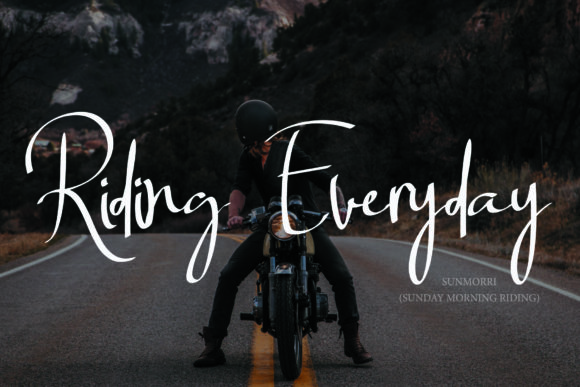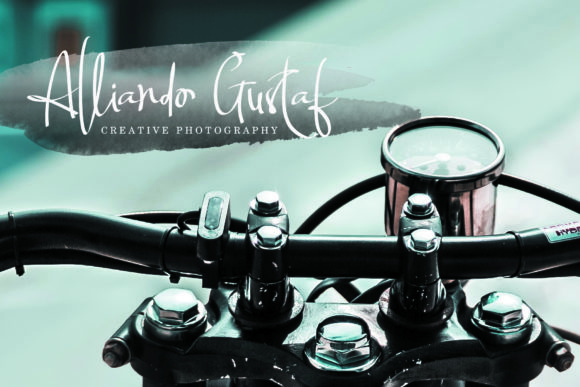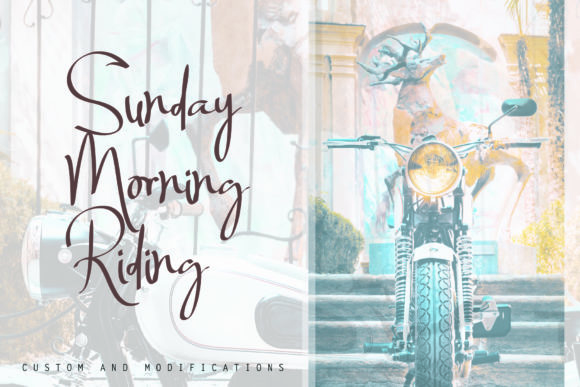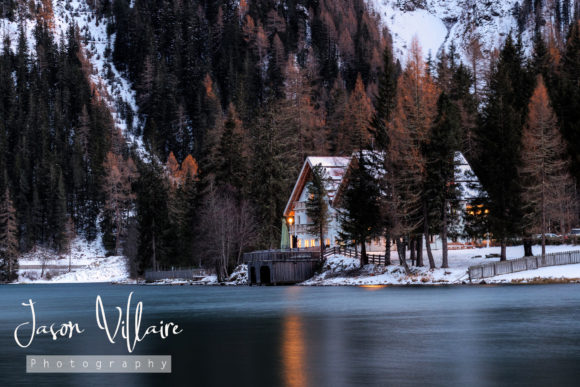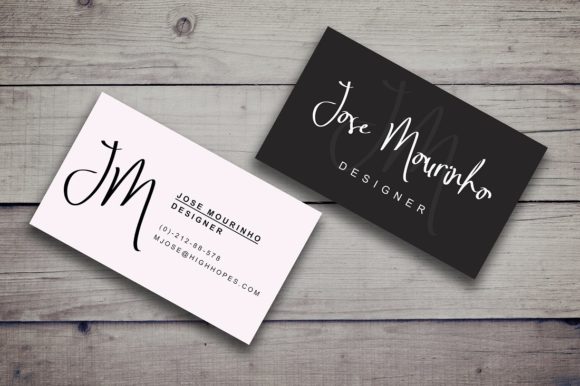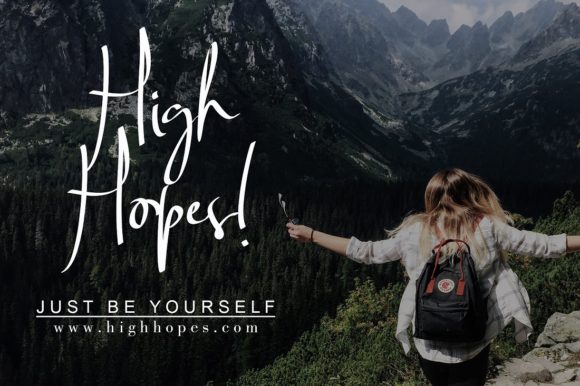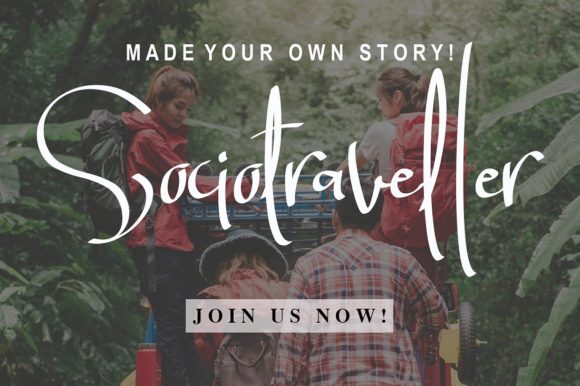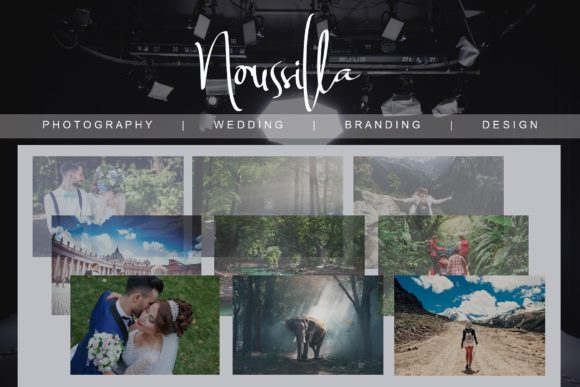
Billortte Font
About Billortte Font
The Billortte is a script with a simple and classy taste. It comes in two elegant variations. It’s classy, readable, stylish and absolutely easy to use!